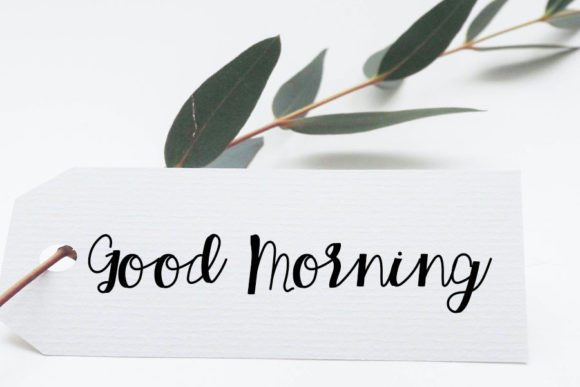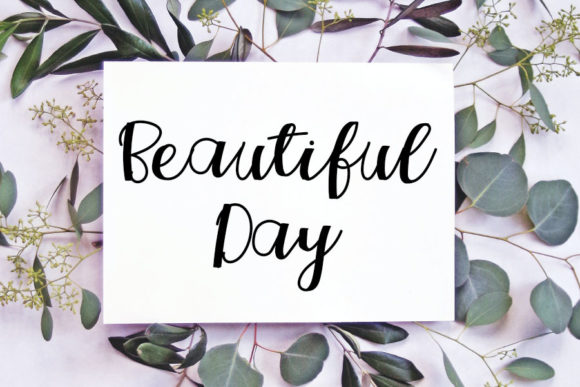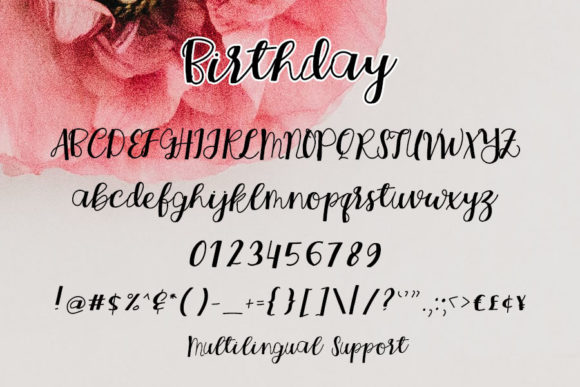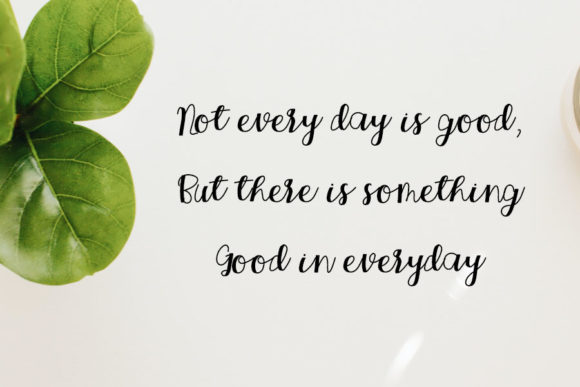
Introducing Birthday Font: The Magical Script Font for Elegant Creations
Are you a designer, crafter, or DIY enthusiast looking for a font that can add a touch of elegance to your creative projects? Look no further than Birthday Font, a beautiful script font designed to make your designs shine. In this article, we’ll explore the features and benefits of Birthday Font, and how it can help you turn your creative ideas into stunning works of art.
What is Birthday Font?
Birthday Font is a carefully crafted script font that exudes elegance and sophistication. With its flowing lines and beautiful letterforms, this font is perfect for a wide range of creative projects, from Instagram graphics and social media posts to DIY crafts and calligraphy projects.
- Elegant and Sophisticated Design: Birthday Font features a beautiful, cursive design that adds a touch of elegance to any project.
- Magical and Whimsical Feel: The font’s flowing lines and intricate details give it a magical and whimsical feel that’s perfect for special occasions and celebrations.
- Highly Versatile: Birthday Font can be used for a wide range of creative projects, from digital designs to handmade crafts.
Uses for Birthday Font
Birthday Font is a versatile font that can be used for a wide range of creative projects, including:
- Instagram Graphics: Add a touch of elegance to your Instagram posts and stories with Birthday Font.
- DIY Crafts: Use Birthday Font to create beautiful calligraphy pieces, gift tags, and other handmade crafts.
- Social Media Graphics: Create stunning social media graphics, including Facebook posts, Twitter headers, and more.
- Stationery and Invitations: Use Birthday Font to create beautiful stationery, invitations, and greeting cards.
Benefits of Using Birthday Font
By using Birthday Font, designers and crafters can enjoy a range of benefits, including:
- Unique and Eye-Catching Designs: Birthday Font helps you create unique and eye-catching designs that stand out from the crowd.
- Elegant and Sophisticated Look: The font’s elegant and sophisticated design adds a touch of class to any project.
- Increased Creativity: With Birthday Font, you can experiment with different design ideas and techniques, pushing your creativity to new heights.
- Time-Saving: The font’s ease of use saves you time and effort, allowing you to focus on other aspects of your creative project.
Tips for Using Birthday Font
To get the most out of Birthday Font, here are some tips to keep in mind:
- Experiment with Different Sizes and Colors: Try out different sizes and colors to find the perfect combination for your project.
- Pair with Other Fonts: Experiment with pairing Birthday Font with other fonts to create unique and interesting combinations.
- Use for Headings and Titles: Use Birthday Font for headings and titles to add a touch of elegance and sophistication.
- Practice, Practice: The more you practice using Birthday Font, the more comfortable you’ll become with its features and capabilities.
Birthday Font is a beautiful and versatile script font that’s perfect for designers, crafters, and DIY enthusiasts. With its elegant and sophisticated design, magical and whimsical feel, and ease of use, this font is sure to become a favorite in your creative toolkit. Whether you’re looking for fonts for Instagram, calligraphy scripts for DIY projects, or a font to add a touch of elegance to your designs, Birthday Font is the perfect choice.